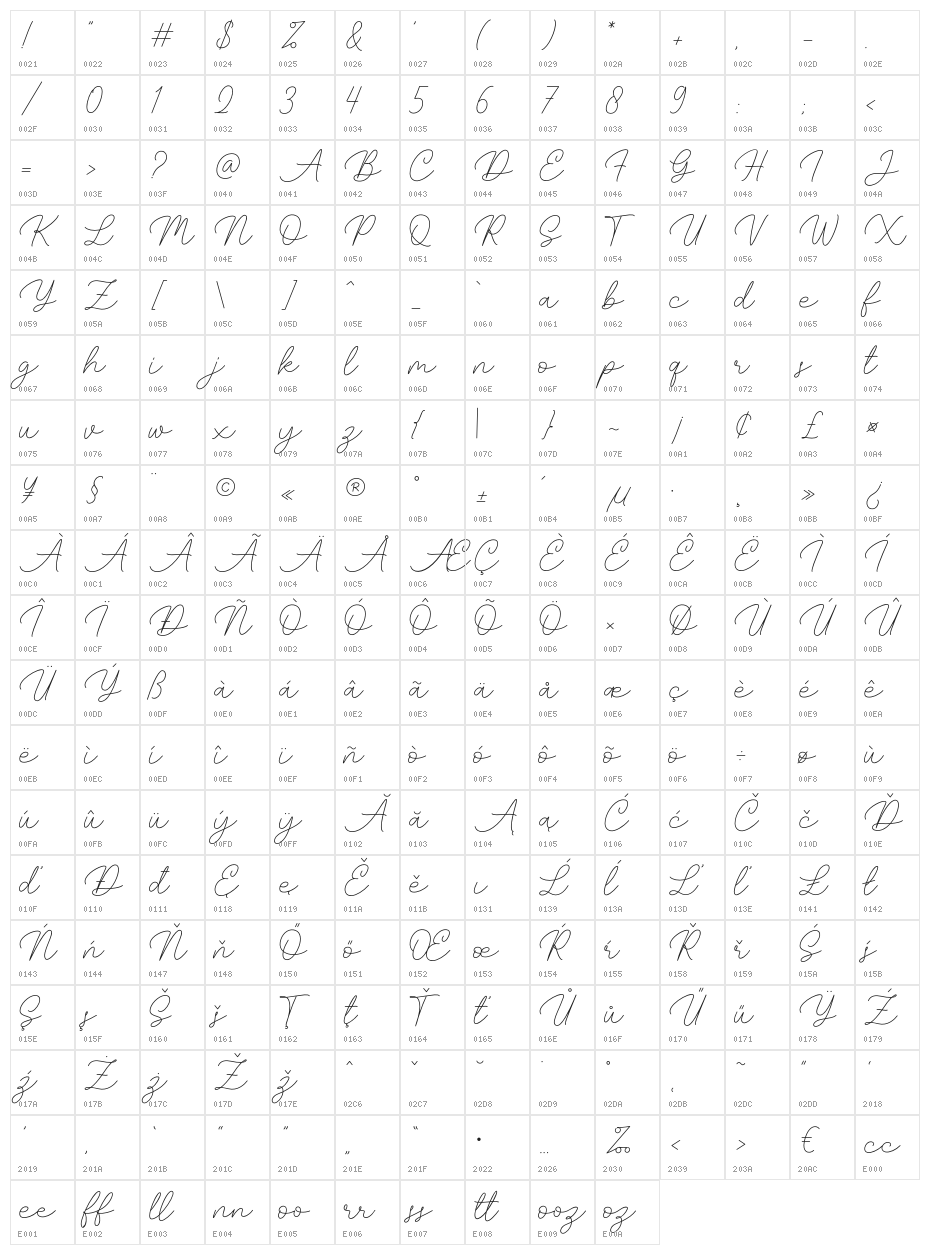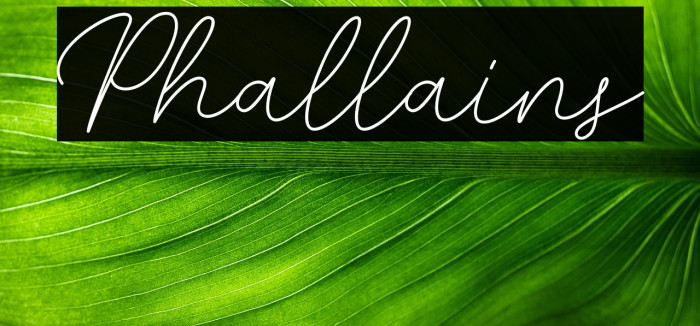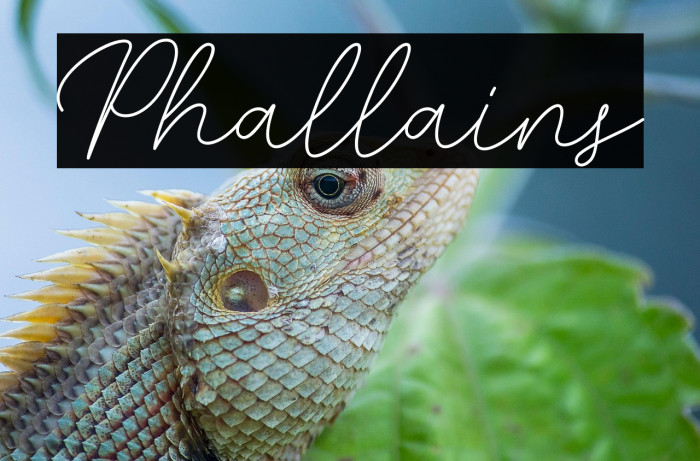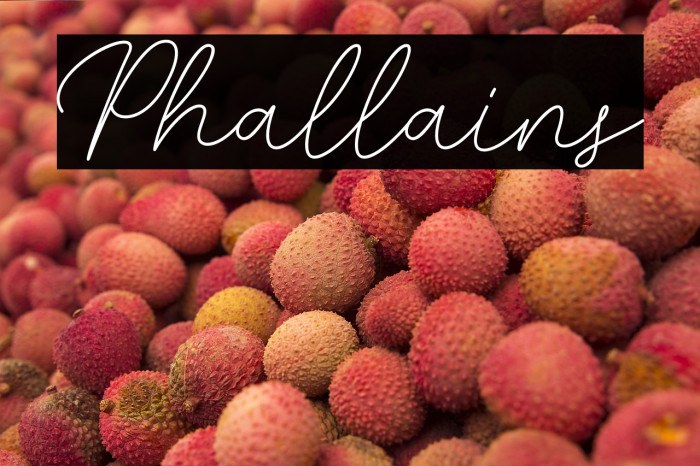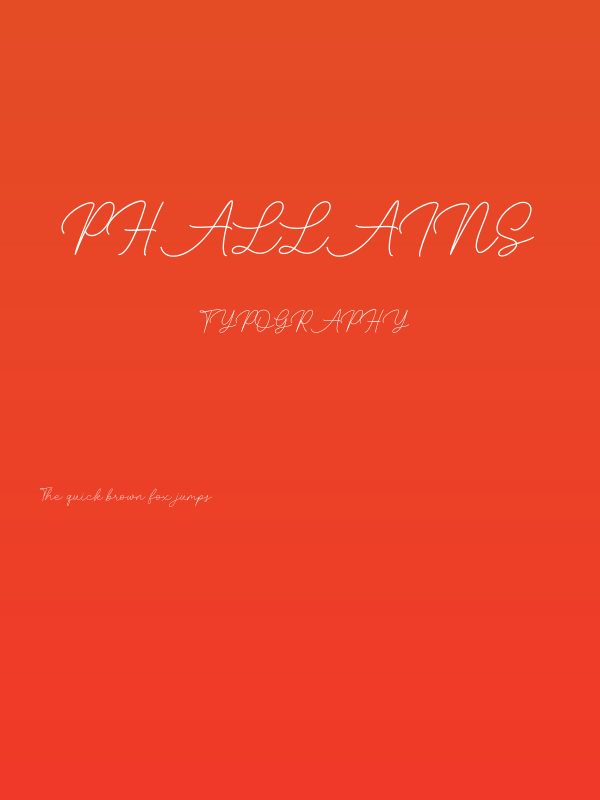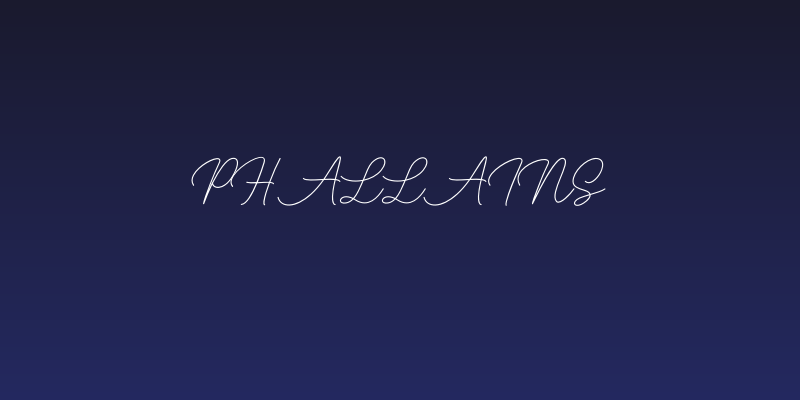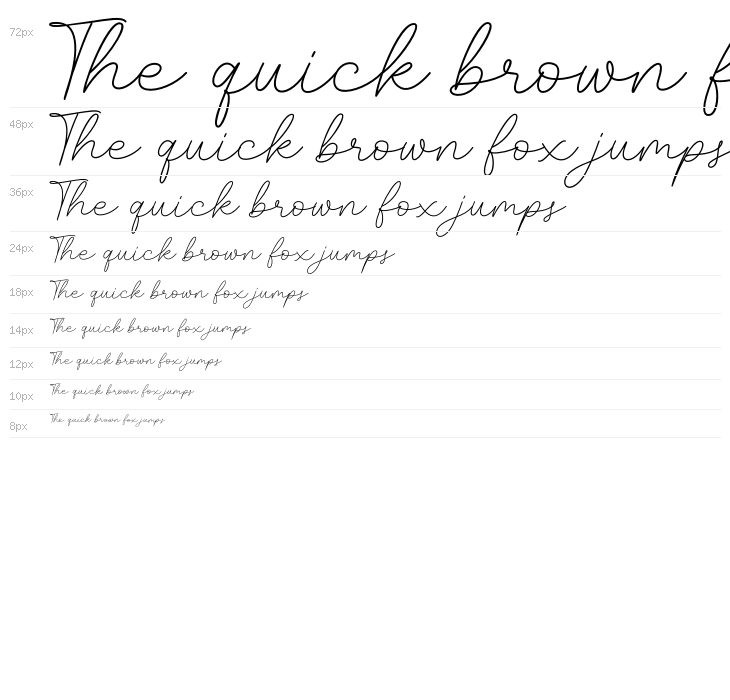
Phallains Font
Phallains Description
This elegant script font features fluid, connected strokes that mimic the natural flow of handwriting. The characters are gracefully elongated with a slight slant, giving it a sophisticated and stylish appearance. The uppercase letters are ornate and decorative, while the lowercase letters maintain a consistent and harmonious flow. The numerals are clear and legible, complementing the overall aesthetic. Special characters are designed with the same attention to detail, ensuring a cohesive look across all elements. This font exudes a sense of elegance and refinement, making it ideal for projects that require a touch of class.
| Overall Style | Elegant, Sophisticated |
| Use Case | Invitations, Branding, Stationery |
| Proposed Projects | Ideal for wedding invitations, elegant branding, personal stationery, and high-end product packaging. |